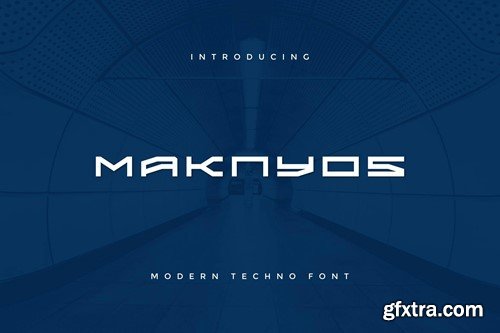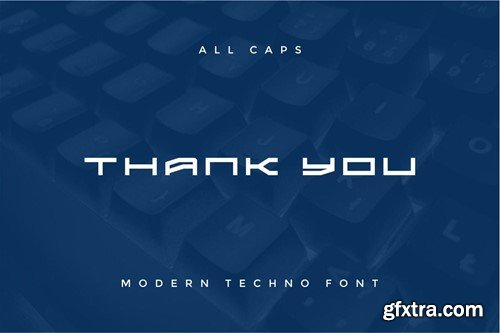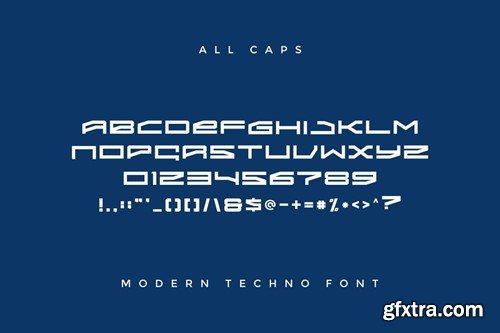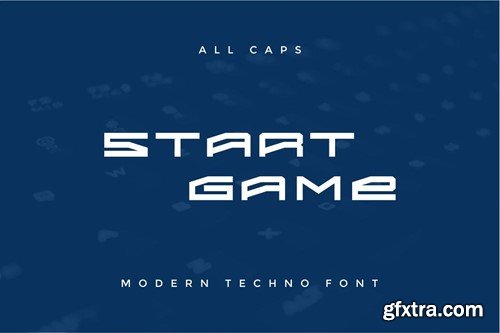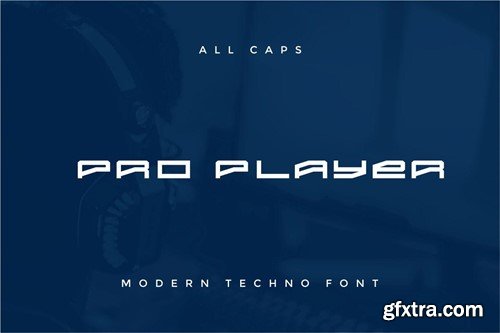
Maknyos - 现代 techno 字体 HMH44Q9
Maknyos - Modern Techno Font
Introducing our new product Maknyos - Modern Font Maknyos is a bold, modern display font with playful flair, ideal for attention-grabbing headlines, logos, and diverse design projects. Versatile and readable in both digital and print, Maknyos adds a dynamic touch to your message. availlable